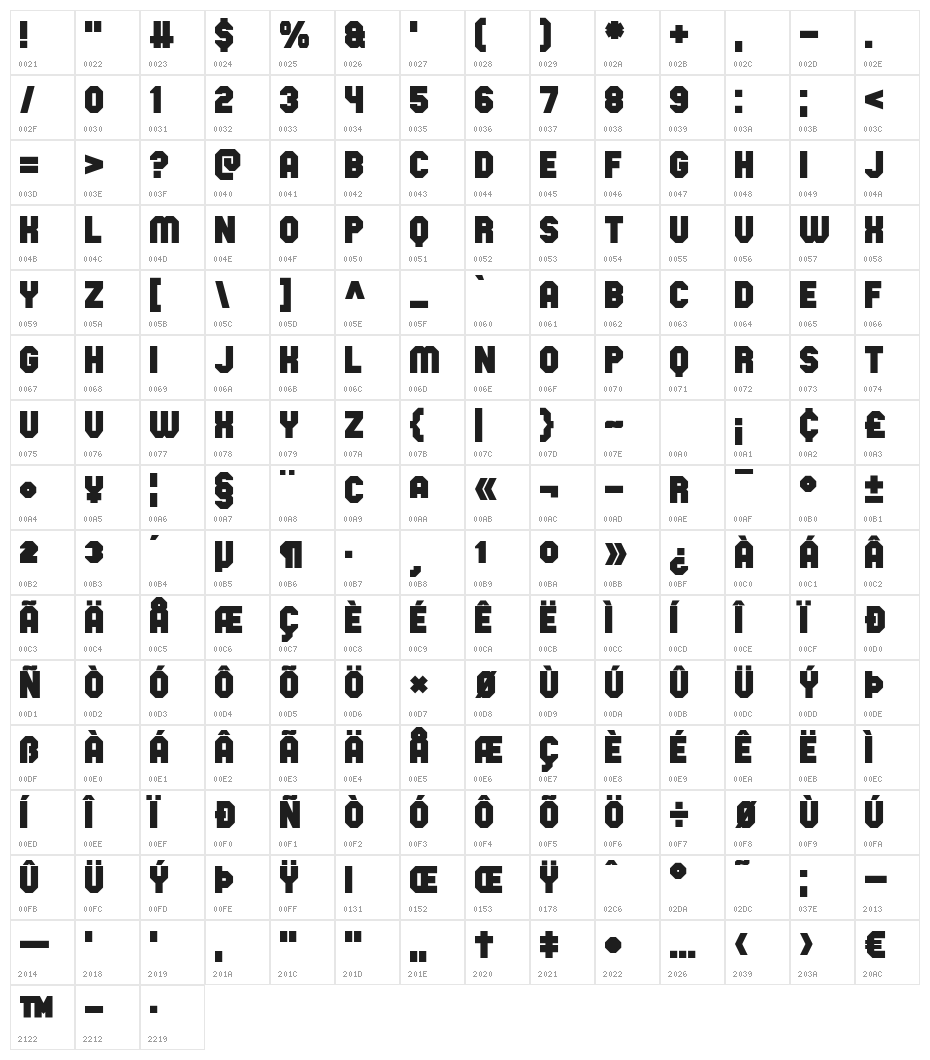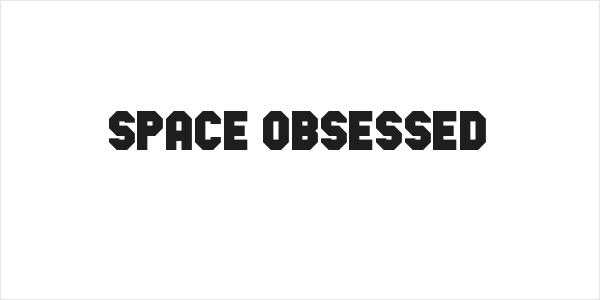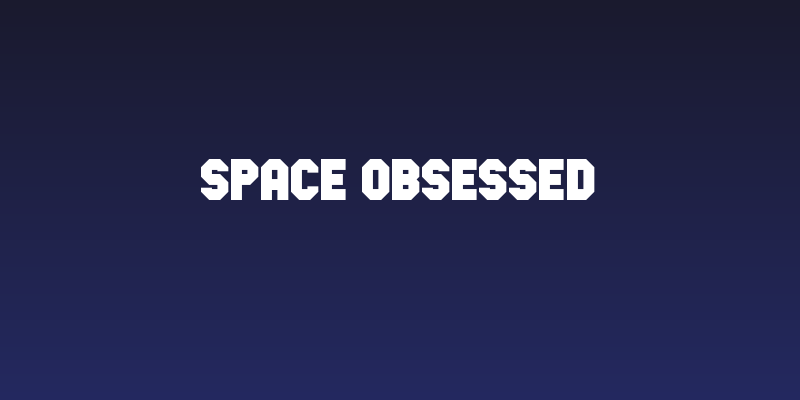
Space Obsessed Font
Space Obsessed Description
This font features a bold, geometric design with a futuristic and space-inspired aesthetic. The characters are constructed with sharp angles and straight lines, giving them a blocky and robust appearance. The uppercase letters are uniform in height, while the lowercase letters maintain a consistent style, enhancing the font's cohesive look. The numerals and special characters follow the same design principles, ensuring a harmonious visual experience. This font's distinct style makes it ideal for projects that require a modern and edgy feel.
| Overall Style | Futuristic, Modern |
| Proposed Projects | Ideal for sci-fi themed posters, video game titles, technology branding, and futuristic event invitations. |